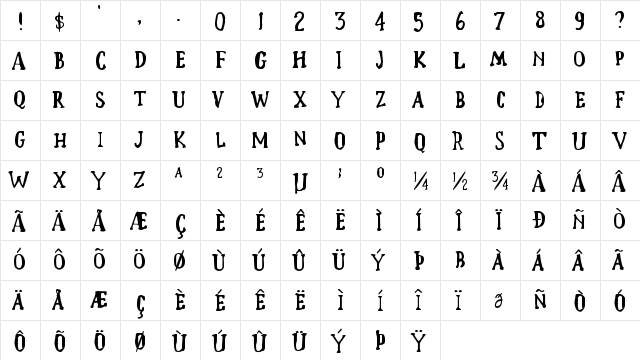
Crazer Regular
Design Context for Crazer Typeface
Crazer is a composed and adaptable typeface that performs quietly and consistently across a wide range of design contexts.
Pro Tip: Use Crazer in both headline and body roles to test its range before committing to a single application.